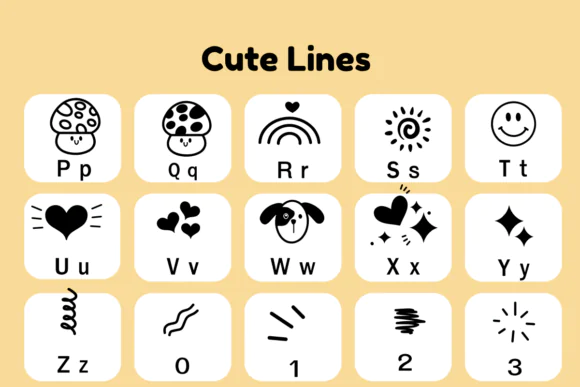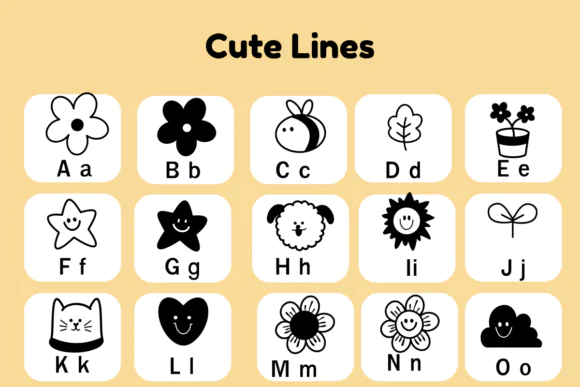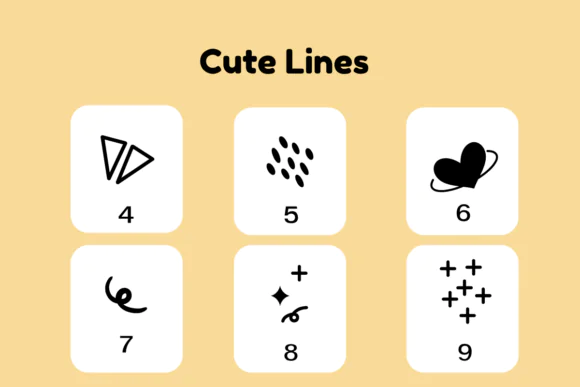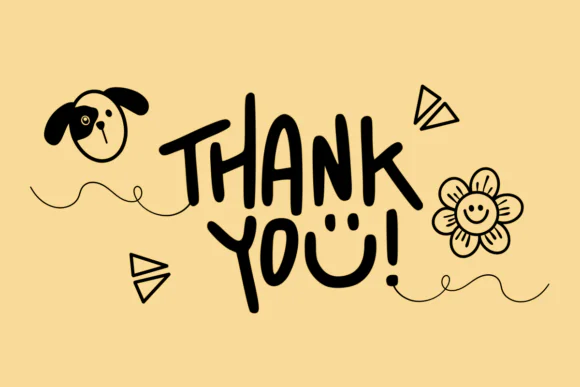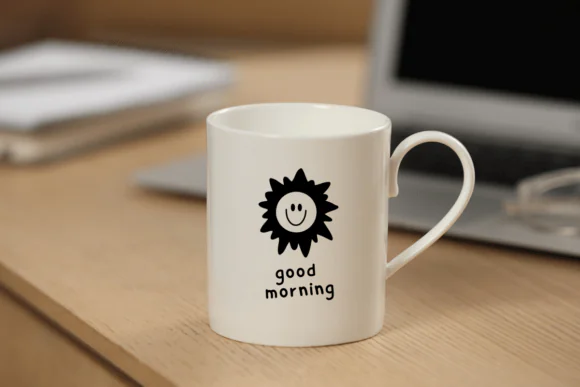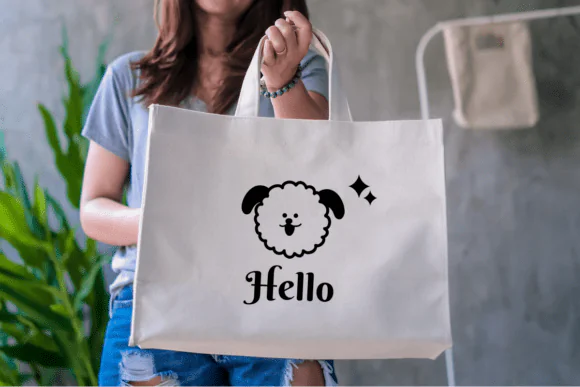
Cute Lines Dingbat Font | Friendly Decorative Line Art Typeface for Stickers, Planners, Greeting Cards, Social Media Posts, Stationery, Kids Designs & Creative Crafts
Add a sweet, playful, and friendly touch to your creative projects with Cute Lines Font, a charming dingbat font designed to bring simple decorative style to your designs. With its cute line-based appearance and easy-to-use dingbat format, this font is perfect for creators who want to add fun visual accents, small illustrations, borders, dividers, and decorative elements to their layouts.
Cute Lines Font is ideal for designers, crafters, teachers, planner creators, stationery makers, printable sellers, social media designers, and small business owners who want a friendly decorative font for everyday creative use. It works beautifully for stickers, planner pages, greeting cards, invitations, classroom printables, kids’ designs, scrapbook pages, wall art, labels, packaging, social media graphics, and digital craft projects.
This font is especially useful for projects that need a light, cute, handmade, and cheerful appearance. Whether you are creating planner stickers, cute printable worksheets, greeting cards, journal decorations, simple social media posts, or fun stationery artwork, Cute Lines Font helps your designs feel more charming and visually engaging.
Use it to add personality to both digital and printable projects, from small design accents to complete decorative compositions.
• Planner stickers
• Greeting cards
• Stationery art
• Social media posts
• Invitations
• Classroom printables
• Kids’ designs
• Scrapbooking
• Journal pages
• Wall art prints
• Stickers and labels
• Product packaging
• Printable crafts
• Cute doodle designs
• Digital design projects
Key Style Features
• Cute and friendly dingbat font
• Simple decorative line style
• Great for accents, borders, and dividers
• Playful handmade appearance
• Perfect for planners, cards, and stickers
• Suitable for kids and family-friendly designs
• Easy to use in creative projects
• Works well for print and digital layouts